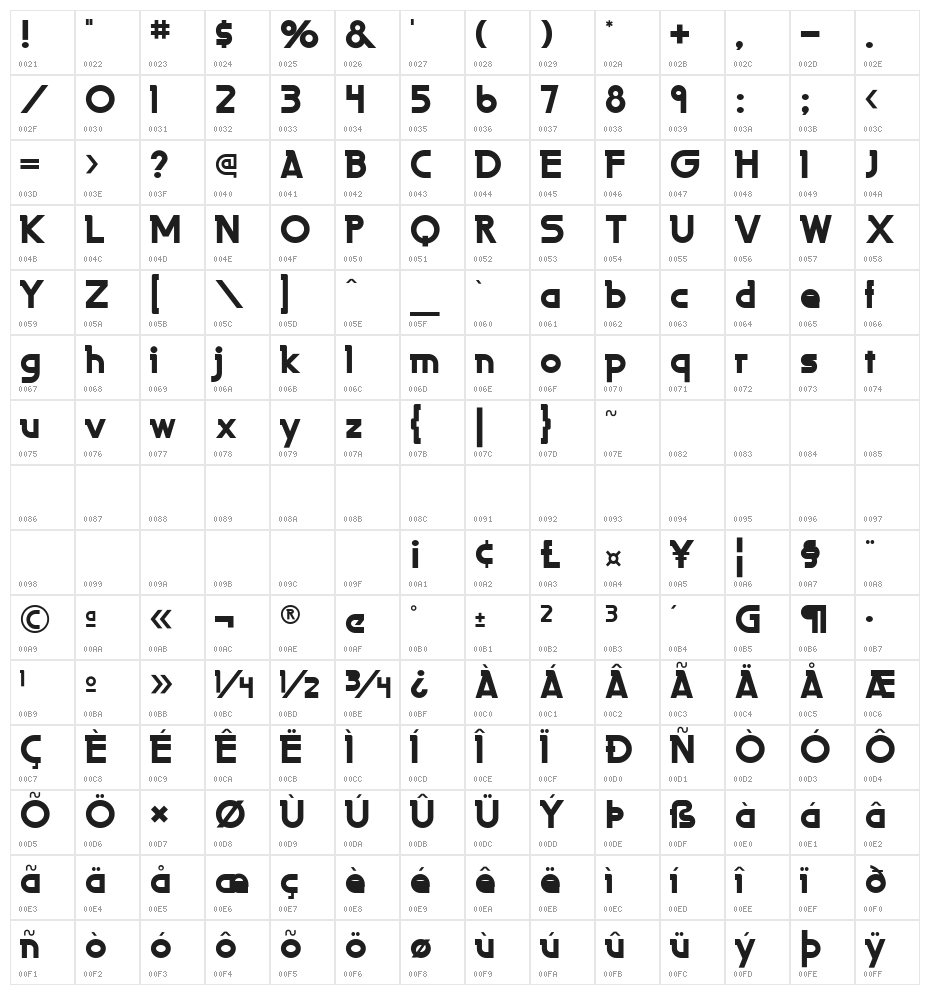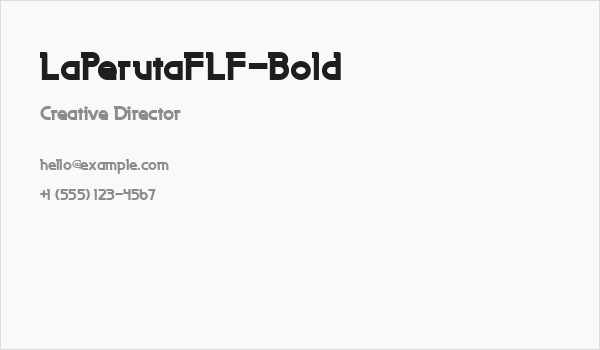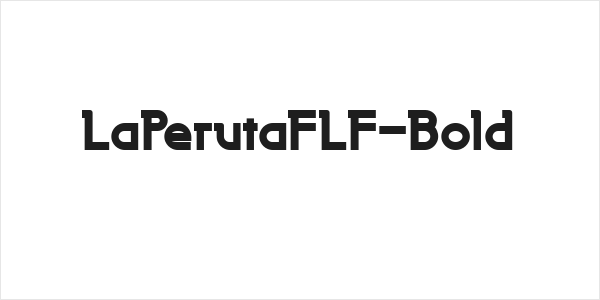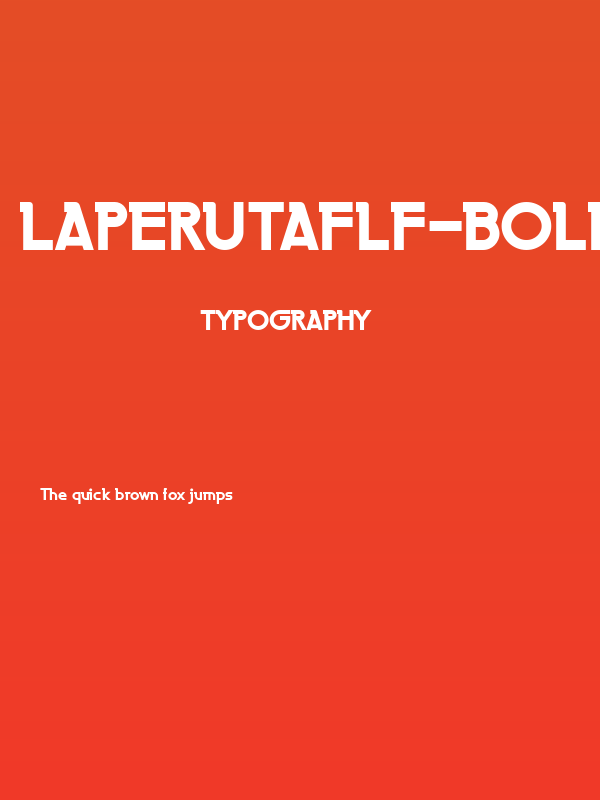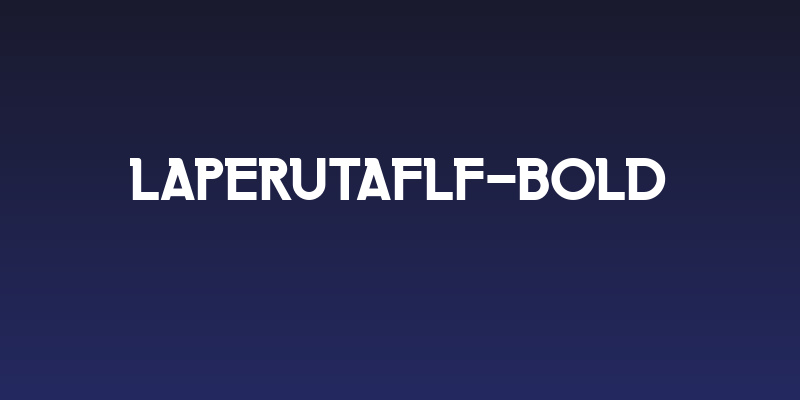
LaPerutaFLF-Bold Font
LaPerutaFLF-Bold Description
This font features a bold and striking design with a geometric and modern aesthetic. The characters are crafted with a strong presence, showcasing thick strokes and a uniform weight throughout. The uppercase letters are particularly prominent, with a slight curvature that adds a unique flair to the overall appearance. The lowercase letters maintain the same boldness, ensuring consistency across the typeface. Numbers and special characters are designed with the same attention to detail, making them easily readable and visually appealing. This font is ideal for projects that require a bold statement and a modern touch.
| Proposed Projects | Ideal for branding, headlines, posters, and any design needing a bold, modern touch. |